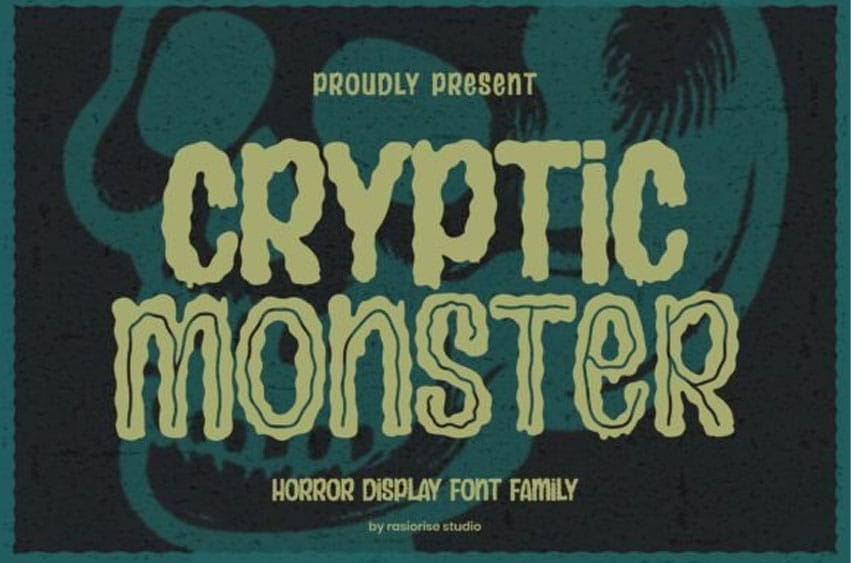
Cryptic Monster Font We’re excited to announce the release of Cryptic Monster, a Horror Cartoon style font inspired by retro and classic horror comic covers. This typeface combines elements of hand-drawn and scribble styles, and it comes in two variations: Regular and Inline.
Unleash your creativity with this bold, playful, and easy-to-read font. Cryptic Monster is perfect for a wide range of projects, including logotypes, book covers, posters, invitations, gift cards, Halloween greeting cards, merchandise, packaging labels, and more.